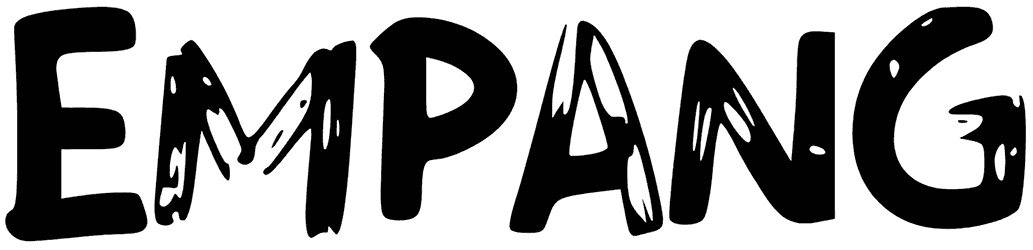
e Empang Font
Do you have an aesthetic design and want to make it better than similar ones? Don’t lose this chance and try the e Empang. This adventure font, with its bold and soft face, would be a catchy style for your creative designs. This natural script font could make a nice display for your prospective designs, such as flyers, apparel, packaging, and more of the same.